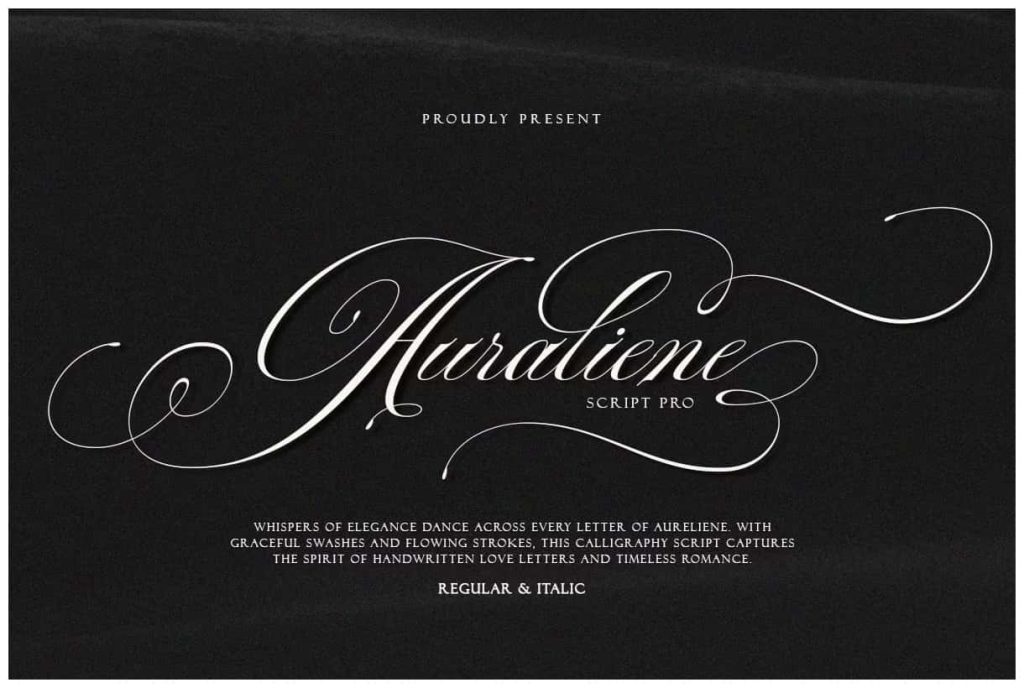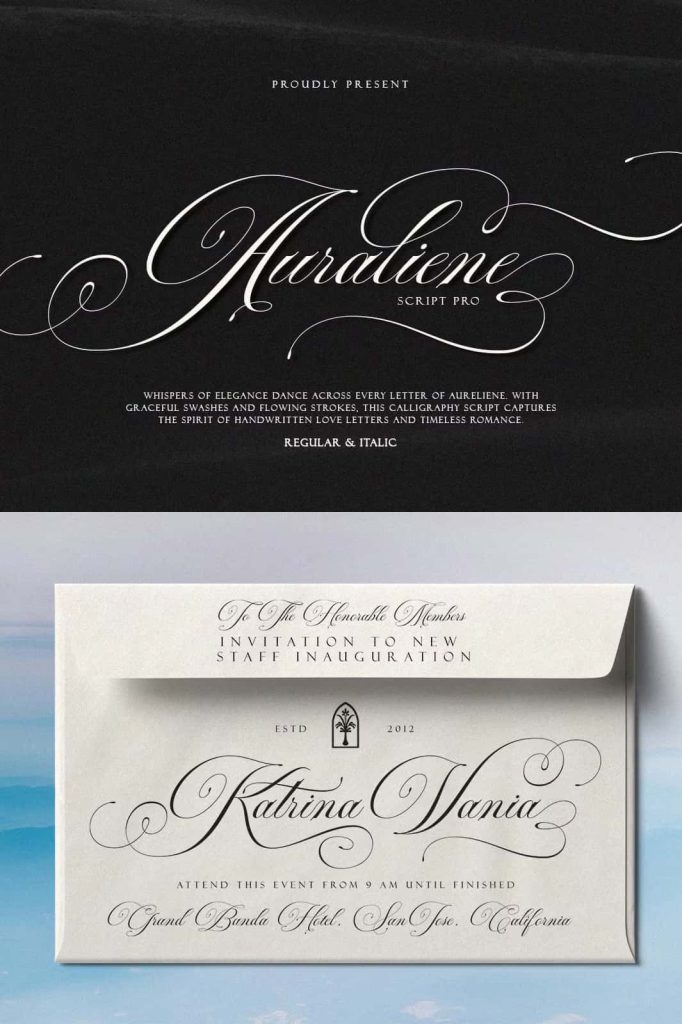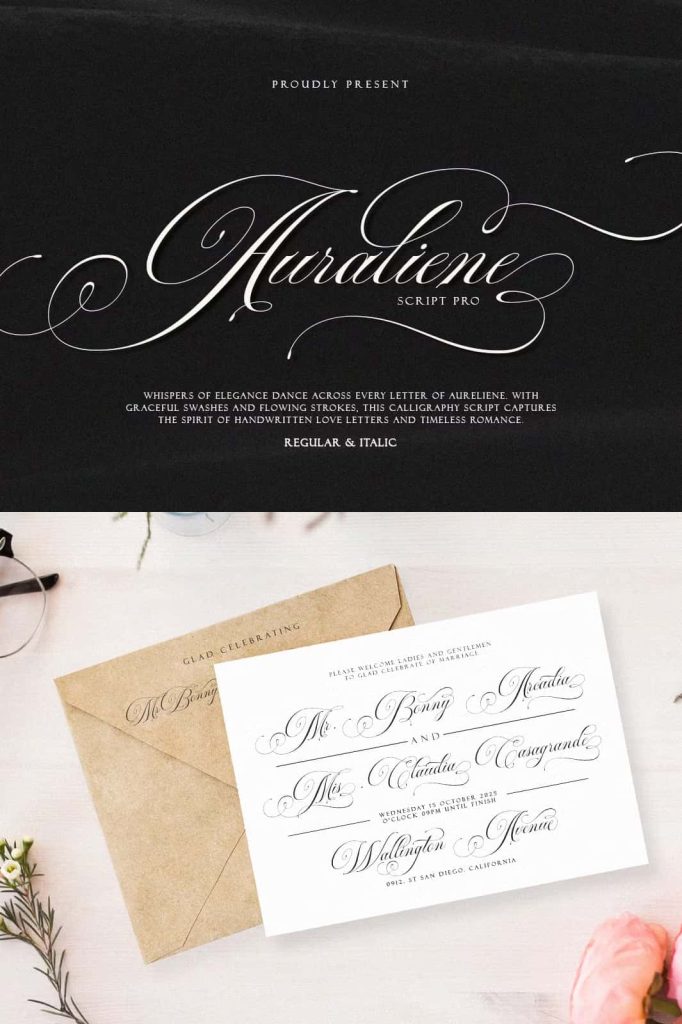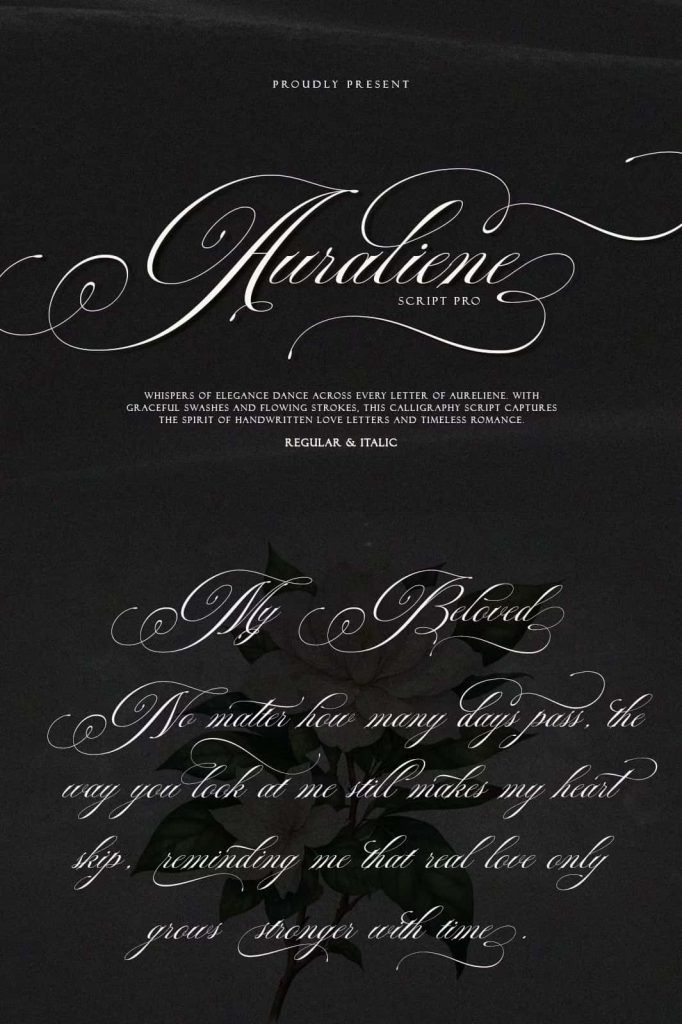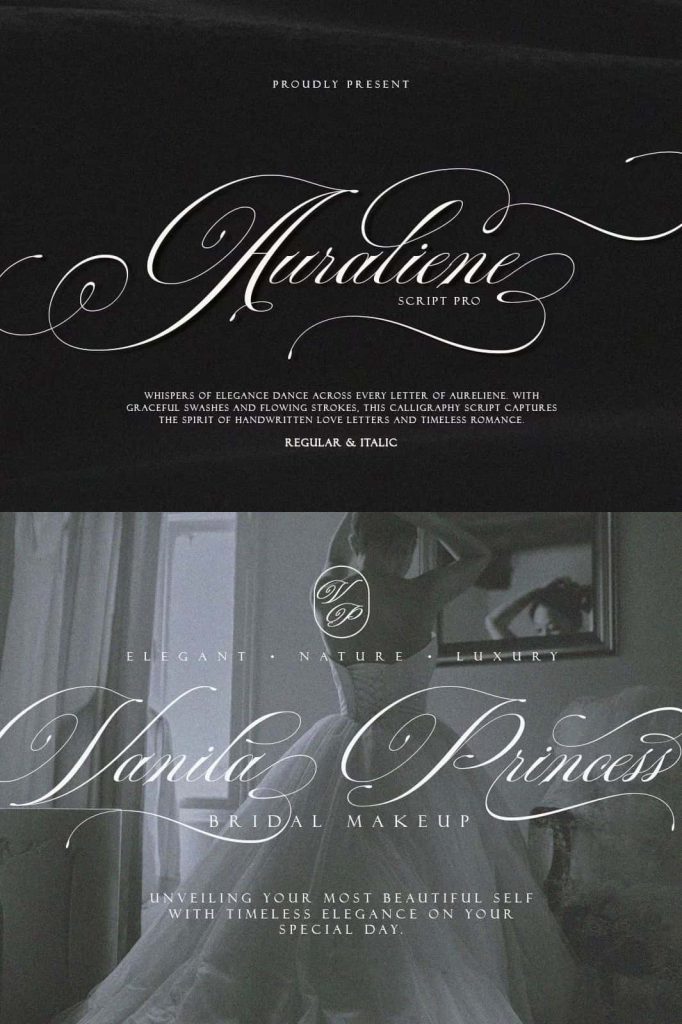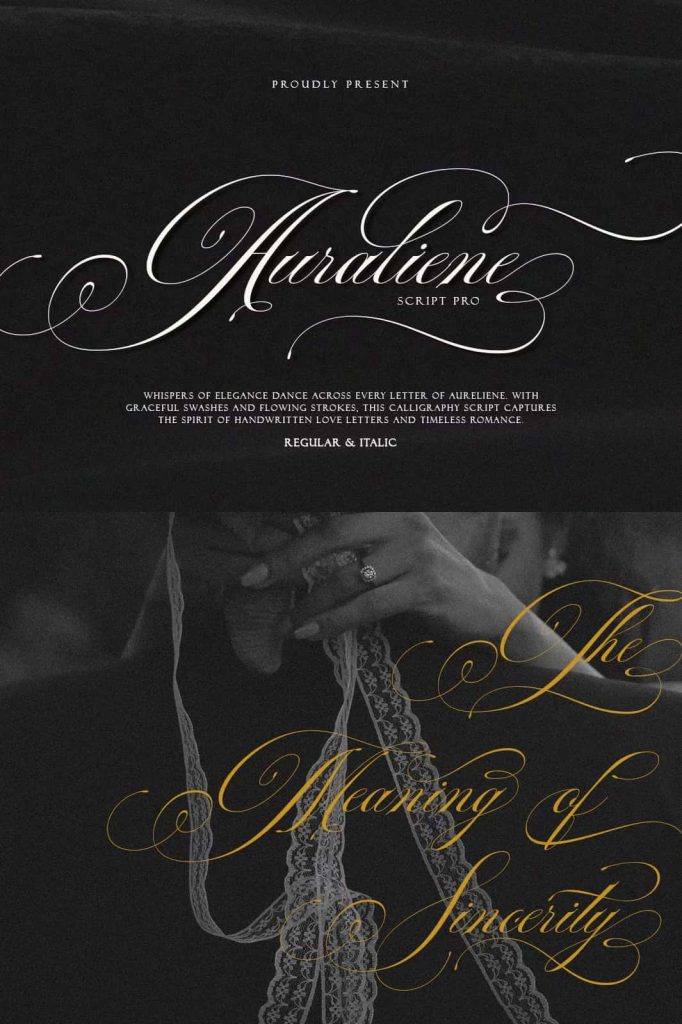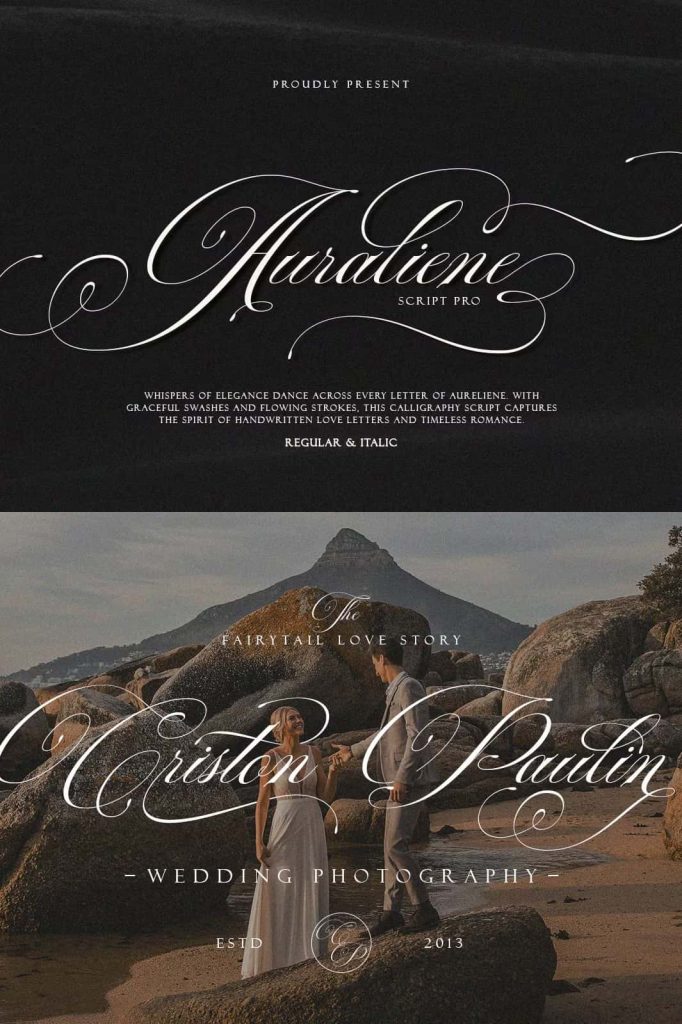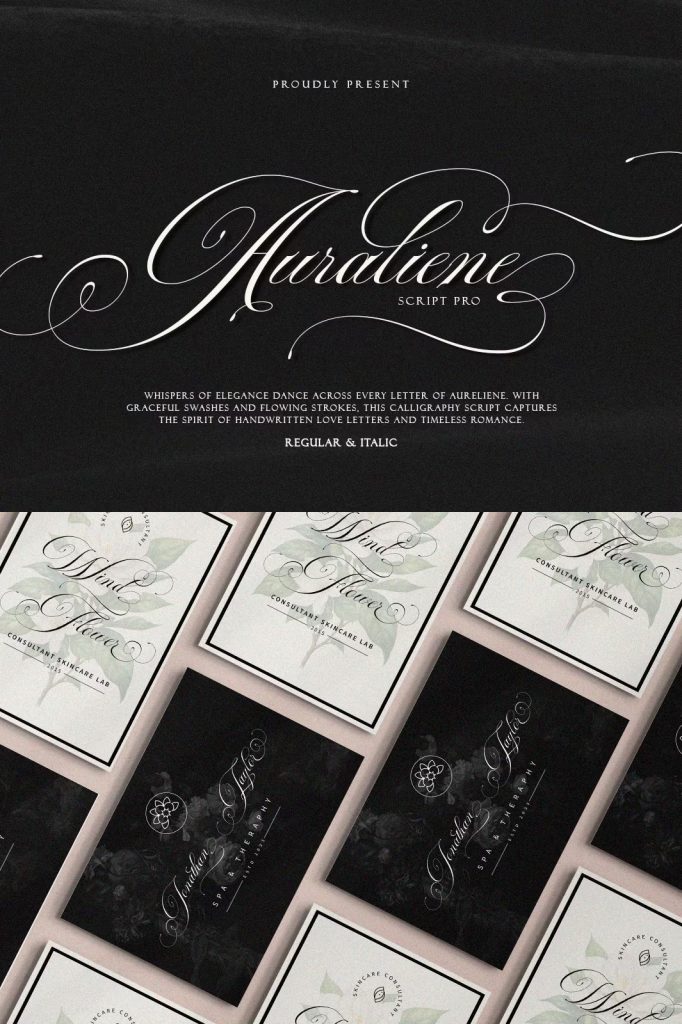
Auraliene Pro is a script font that comes with very beautiful changing characters, a kind of classic decorative copper script with a modern touch, designed with high detail to bring stylish elegance.